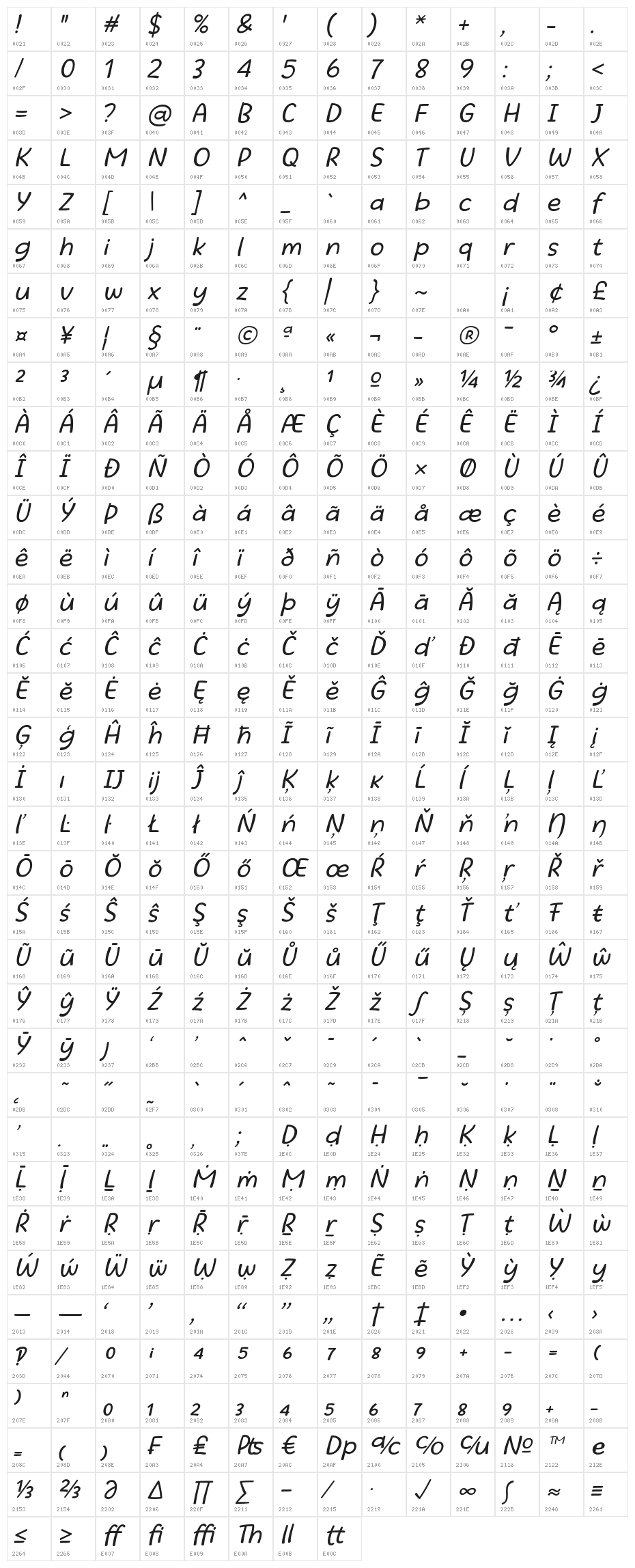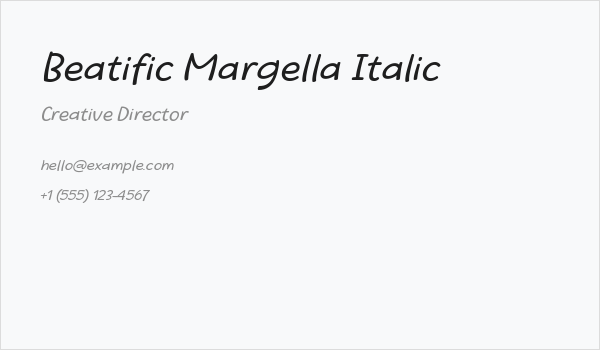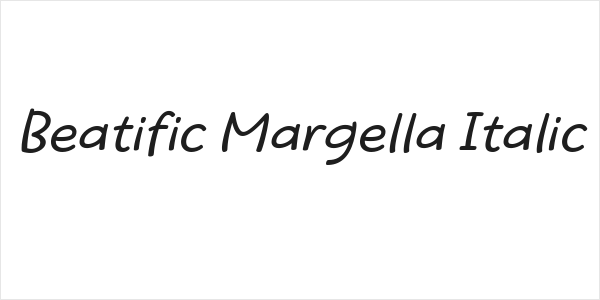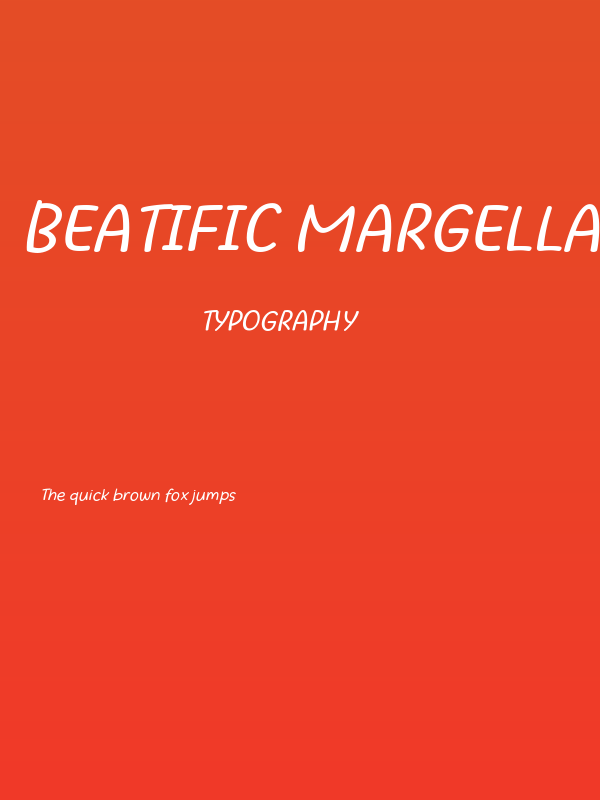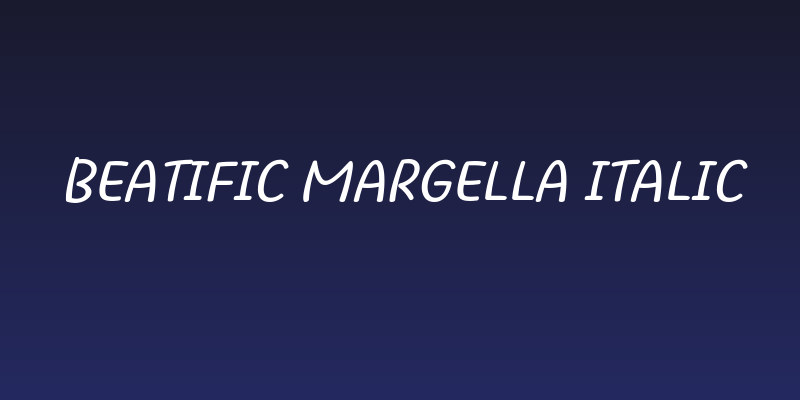
Beatific Margella Italic Font
Beatific Margella Italic Description
This font features a smooth, flowing style with a slight slant, giving it an elegant and dynamic appearance. The characters are well-rounded with a consistent stroke width, providing a clean and modern look. The uppercase letters maintain a uniform height, while the lowercase letters have a gentle curve, enhancing readability. Numbers are clear and distinct, matching the overall aesthetic. Special characters are designed with the same fluidity, ensuring a cohesive appearance across all elements.
| Use Case | Logos, Invitations, Editorial design |
| Proposed Projects | Ideal for branding, invitations, and editorial design where a touch of elegance is desired. |